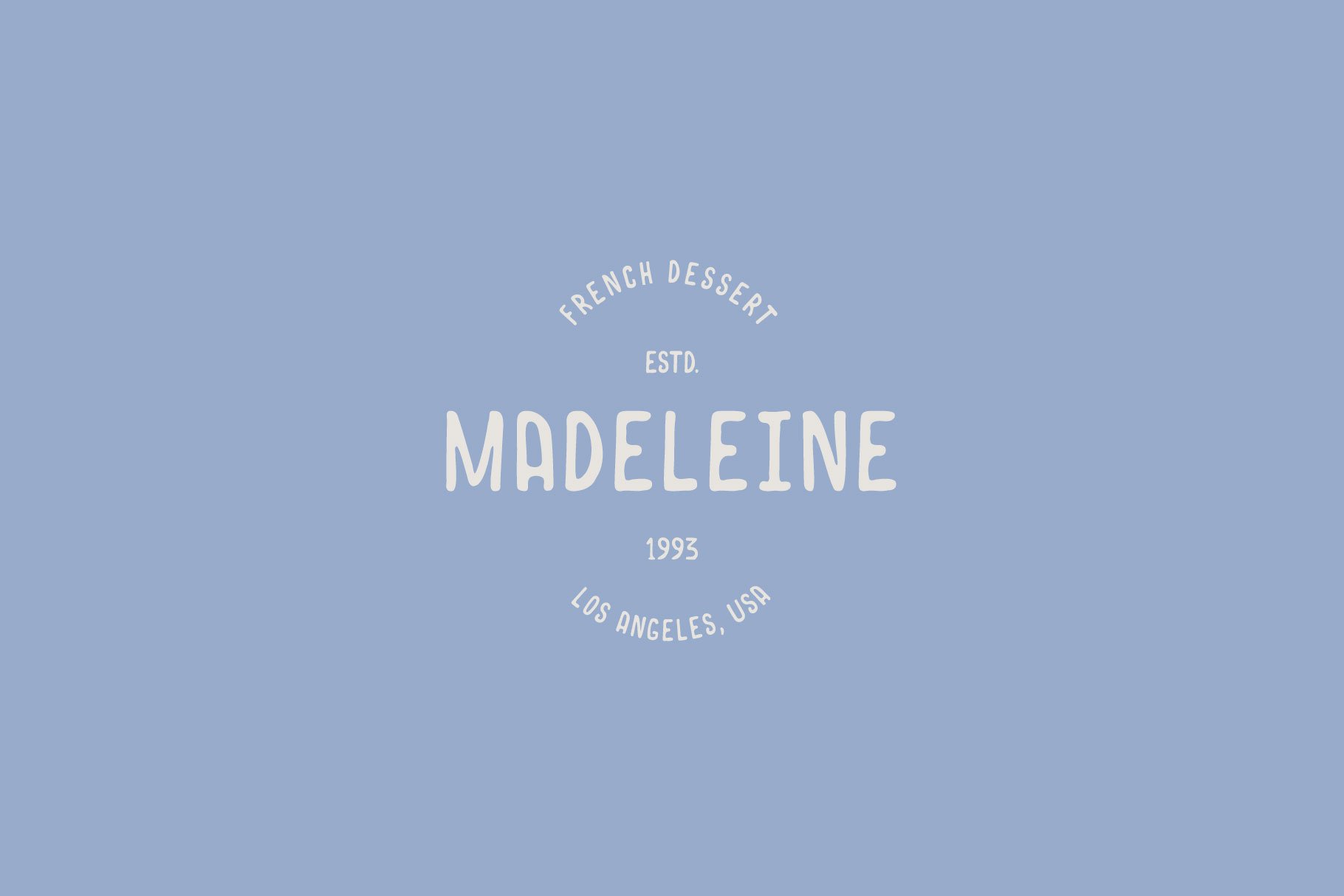
Norquay Font: Add Playful Charm to Your Designs
Norquay is a vintage handcrafted sans serif font with a hand-drawn look. It comes in Regular and Bold versions and is perfect for logos and branding with a playful, casual touch. The cute and friendly pen handwriting style adds personality and fun to any project.
Norquay is a versatile font that can be used in a variety of design projects, from logos and branding to invitations, stationery, and social media graphics. Its hand-drawn feel and casual style make it a great choice for projects that require a more personal touch.
With its friendly and laid-back vibe, Norquay is sure to add a touch of charm and character to any design. Whether you're creating a logo for a new business, designing a website, or putting together a marketing campaign, Norquay is the perfect choice for adding a unique and memorable touch to your work.